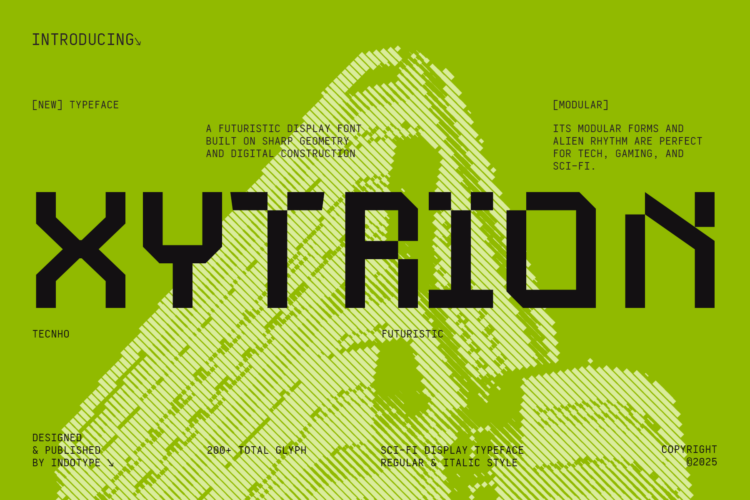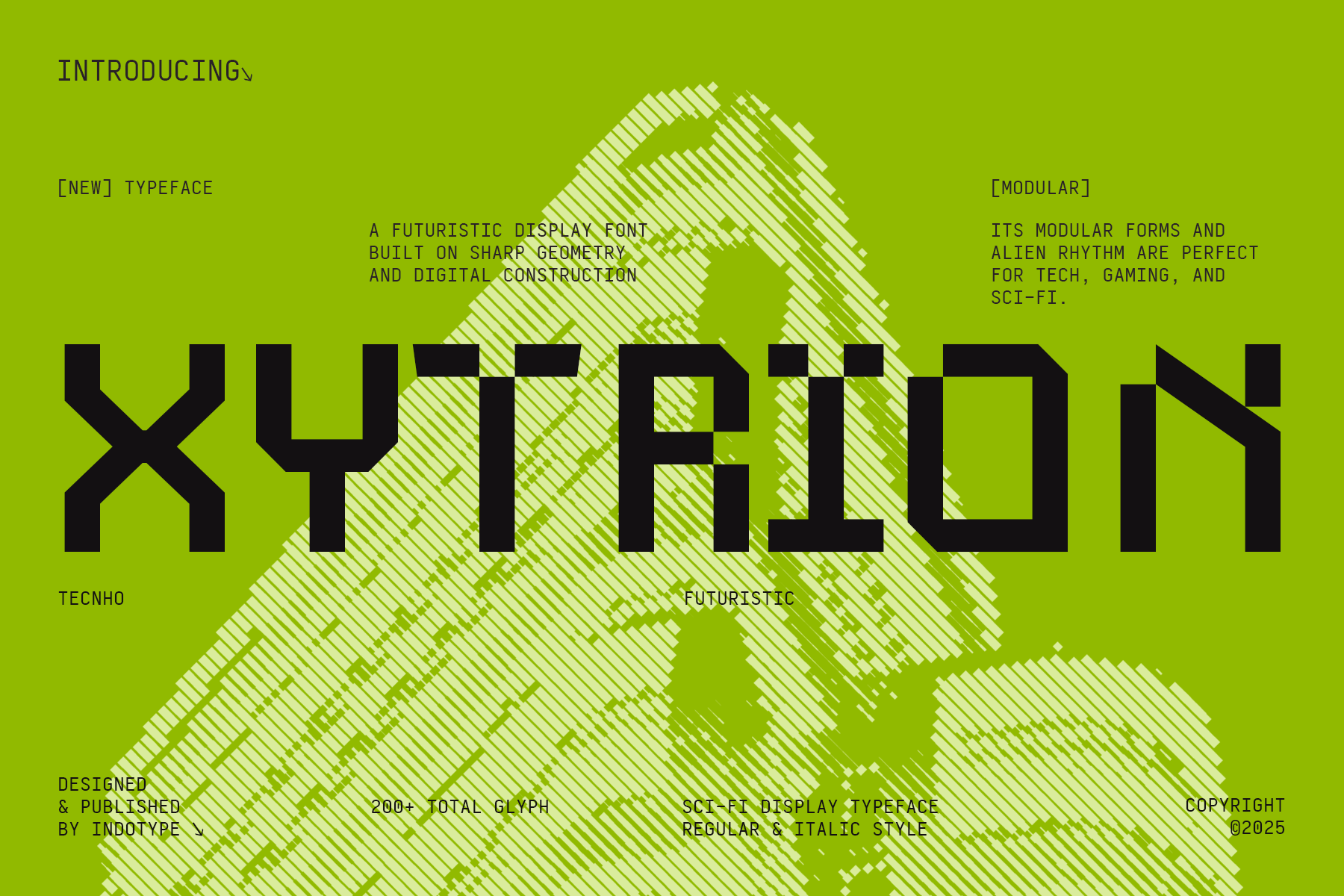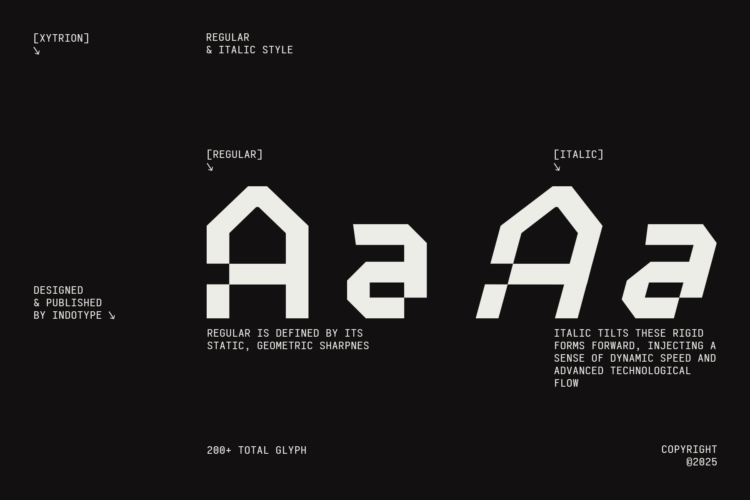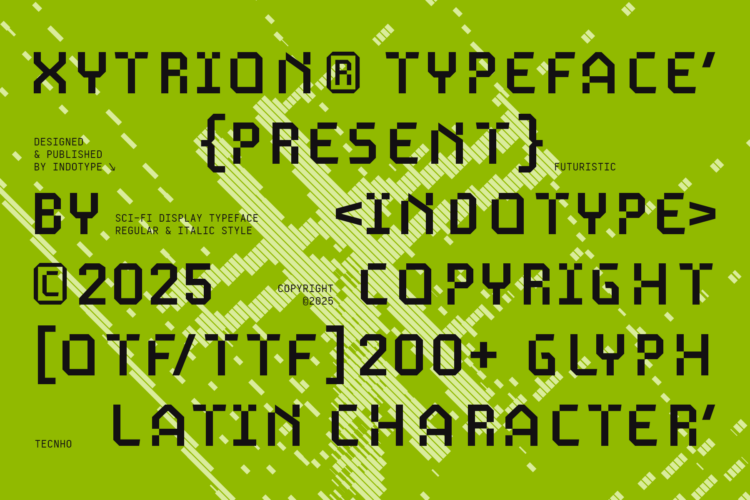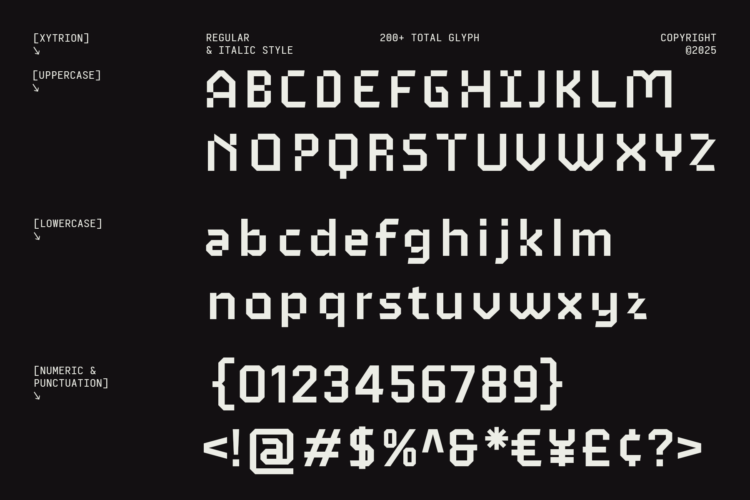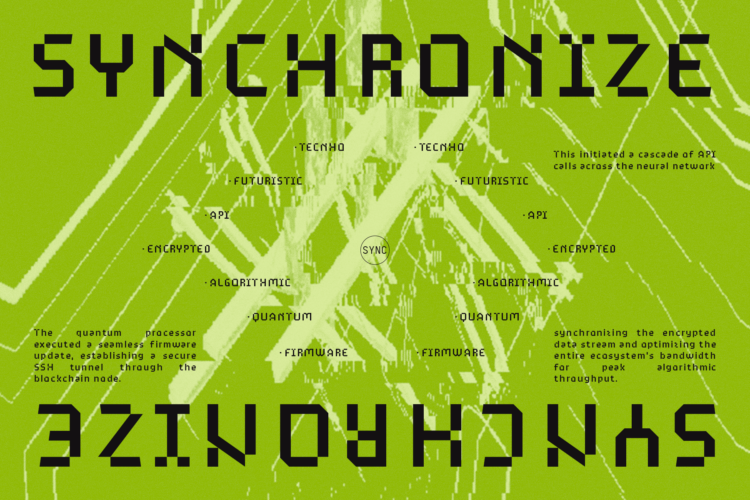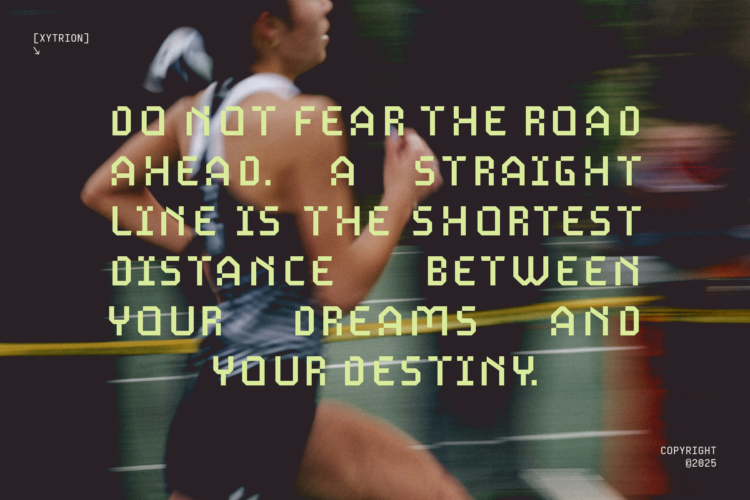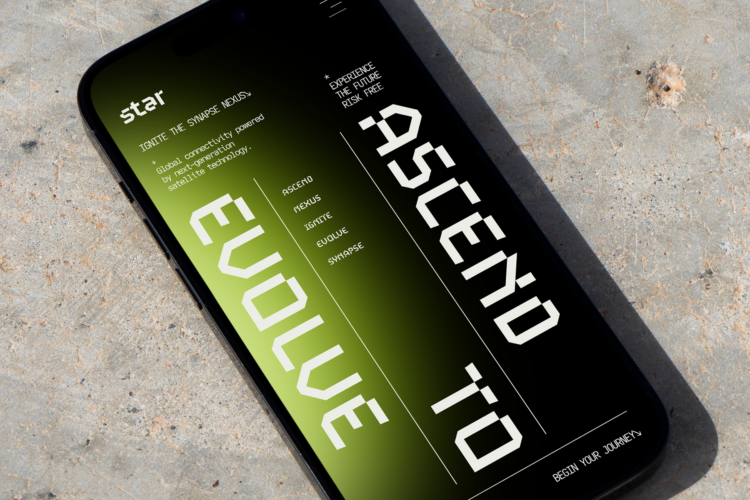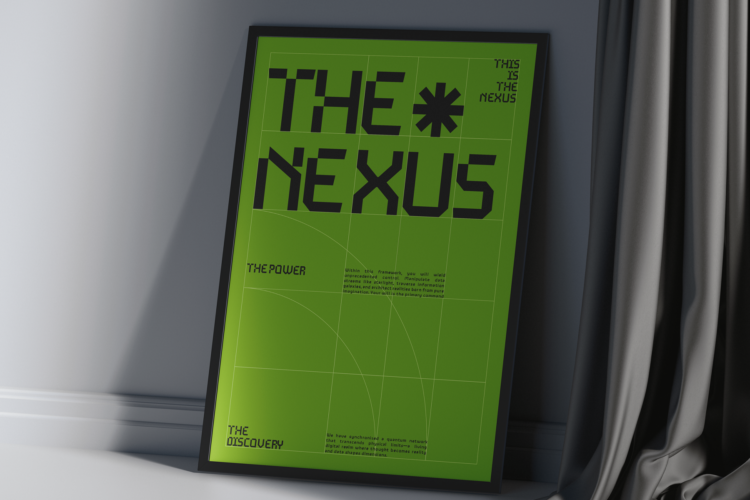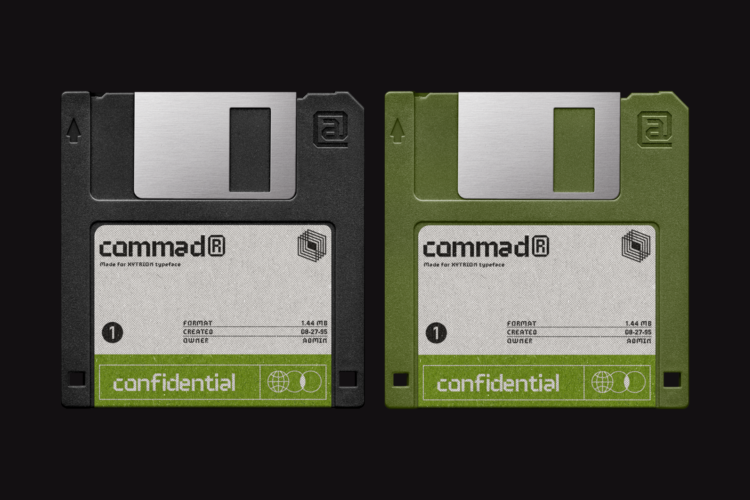
Xytrion Regular
Xytrion Italic
Xytrion is a cutting-edge display typeface that catapults your designs into the future. Built on sharp geometry and digital construction principles, this modular font features an otherworldly rhythm that perfectly captures the essence of advanced technology and sci-fi aesthetics. With its alien-inspired letterforms and systematic design approach, Xytrion creates an immediate visual impact that feels both futuristic and functional. The family includes 200+ total glyphs across Regular and Italic styles, providing versatility for creating dynamic tech interfaces, gaming titles, and science fiction branding. Its modular nature allows for seamless integration in digital environments while maintaining striking presence in print. Xytrion is the ultimate choice for projects that demand a forward-looking, technological edge with uncompromising style.
• Ideal for: Tech Interfaces, Gaming Titles, Sci-Fi Branding, Cyberpunk Designs, Futuristic Logos, Digital Platforms
• Classification: Display, Sci-Fi, Modular, Geometric, Futuristic
• Attributes: Sharp, Technological, Alien, Digital, Advanced, Cutting-edge
• Standard Character A-Z, a-z, 0-9, Punctuation & symbols
• Regular and Italic Style
• Multilingual Support accents and diacritics
Xytrion – Modular Futuristic Sci-Fi Display Typeface